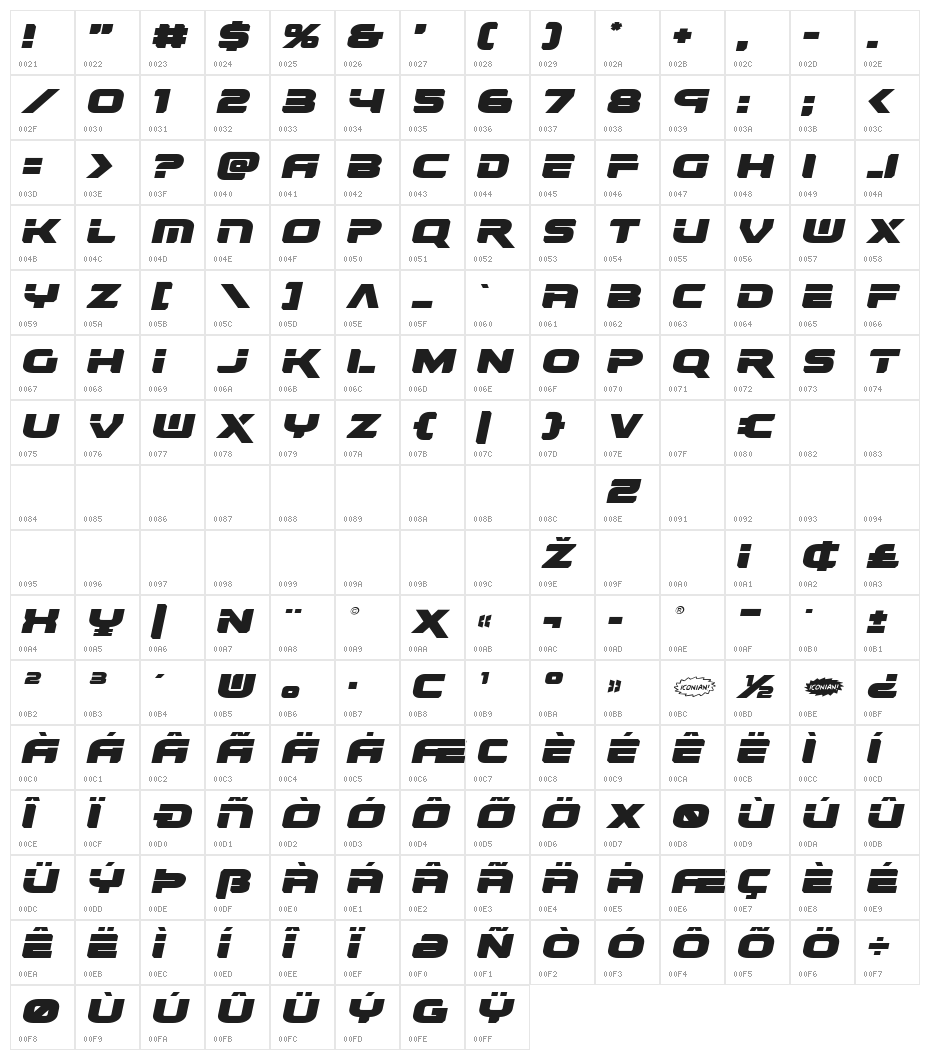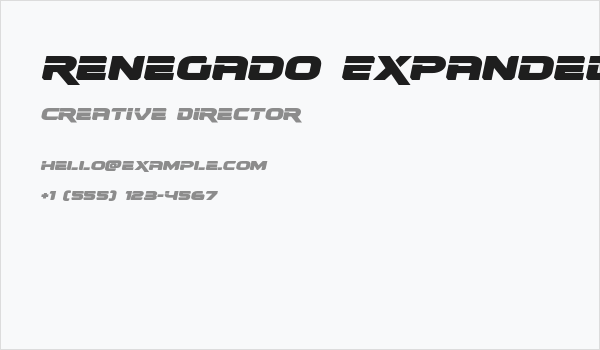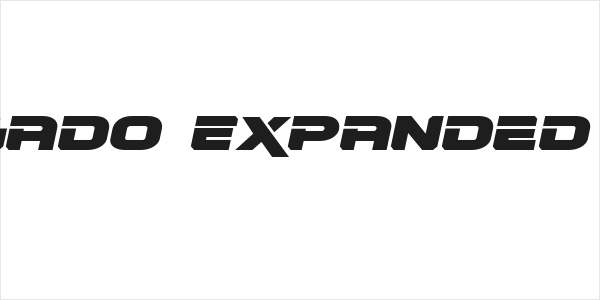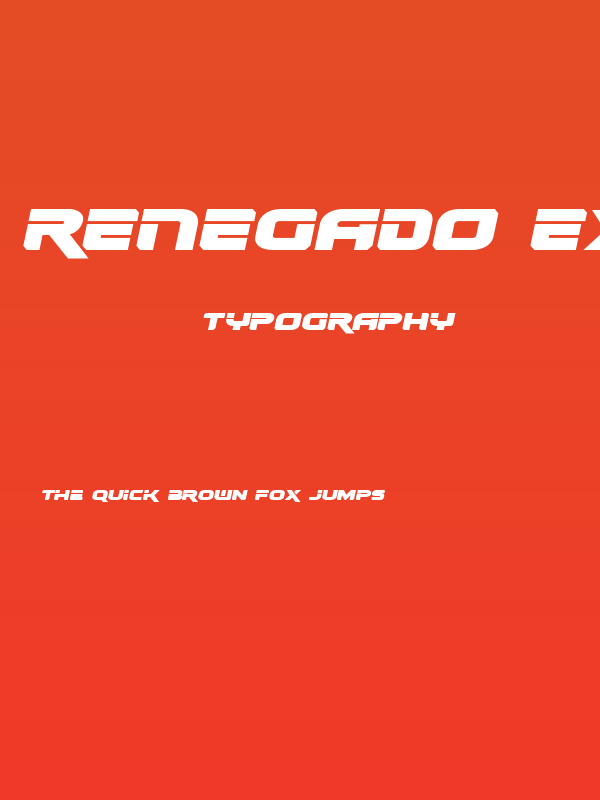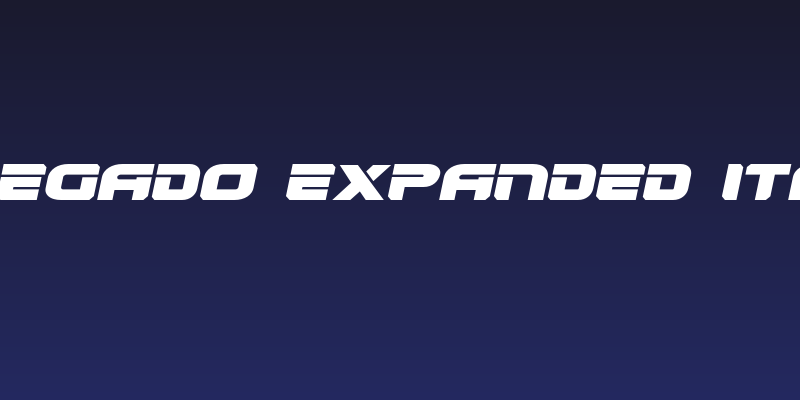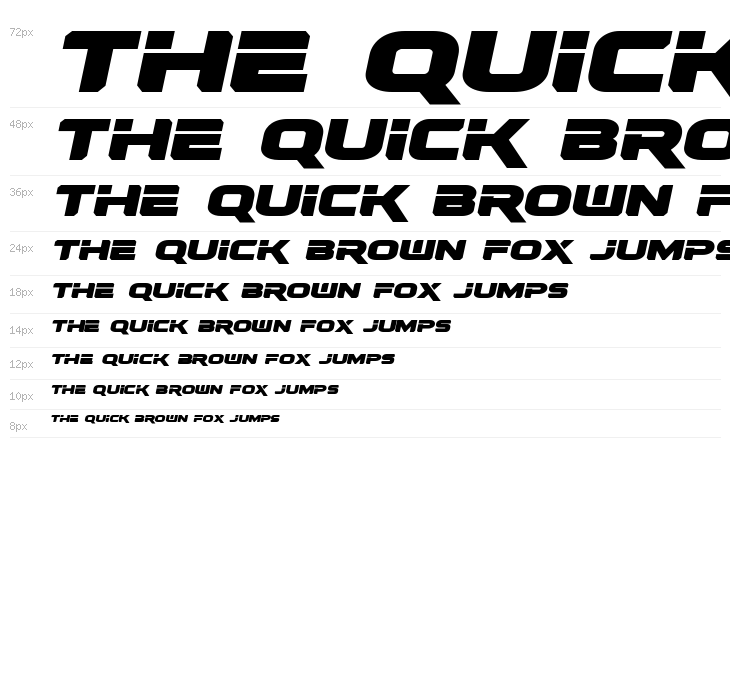
Renegado Expanded Italic Font
Renegado Expanded Italic Description
This font features a bold, italicized style with a futuristic and dynamic appearance. The characters are expanded, giving them a wide stance that enhances their presence. The strokes are thick and consistent, providing a strong visual impact. The angular cuts and sharp edges contribute to a modern and aggressive look, making it suitable for attention-grabbing designs. The spacing between characters is tight, which adds to the compact and cohesive feel of the text. Overall, this font is ideal for projects that require a bold and assertive typeface.
| Proposed Projects | Ideal for sports branding, video game titles, sci-fi movie posters, and dynamic logos. |